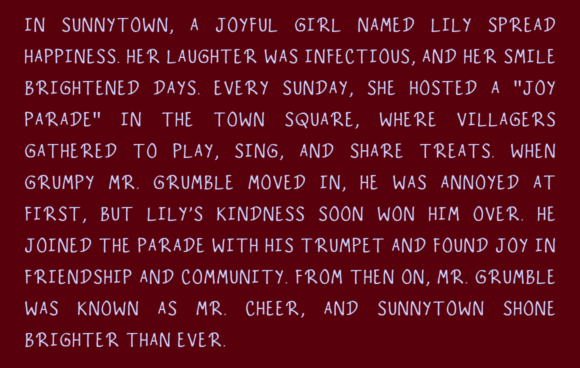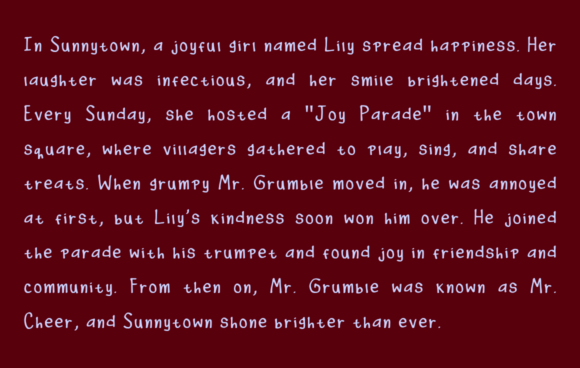
Introducing Natural Flow: The Gel Pen Font that Brings Effortless Elegance to Your Designs
Are you tired of using the same old fonts in your digital journaling and personal stationery projects? Look no further than the Natural Flow font, a beautifully crafted gel pen font that captures the fluidity and elegance of handwritten writing. This charming typeface is designed to add a touch of whimsy and character to any project, making it perfect for designers and crafters looking to add a personal touch to their work.
The Inspiration Behind Natural Flow
Natural Flow is a handwritten monoline typeface that is inspired by the effortless glide of a gel pen. The font’s creator aimed to capture the organic, flowing quality of handwritten writing, while also maintaining a sense of elegance and sophistication. The result is a font that feels both friendly and approachable, yet refined and polished.
What Makes Natural Flow Special?
So, what sets Natural Flow apart from other fonts? Here are just a few features that make this gel pen font truly special:
- Organic touch: Natural Flow has a distinctly organic feel, with subtle imperfections and variations that give it a handmade quality.
- Elegant whimsy: This font is designed to be both elegant and playful, making it perfect for projects that require a touch of sophistication and charm.
- Monoline design: Natural Flow is a monoline font, which means that it has a consistent line width throughout. This gives it a clean, streamlined look that is perfect for digital journaling and personal stationery.
- Friendly nature: This font has a warm, approachable feel that makes it perfect for projects that require a personal touch.
How to Use Natural Flow in Your Designs
Natural Flow is a versatile font that can be used in a wide range of design projects, from digital journaling and personal stationery to branding and packaging. Here are just a few ideas for how you can use this beautiful gel pen font in your designs:
- Digital journaling: Add a personal touch to your digital journaling projects with Natural Flow. This font is perfect for writing, doodling, and creating art.
- Personal stationery: Create beautiful, one-of-a-kind stationery with Natural Flow. This font is perfect for writing letters, creating greeting cards, and making gift tags.
- Branding and packaging: Use Natural Flow to add a touch of elegance and whimsy to your branding and packaging projects. This font is perfect for creating labels, stickers, and other marketing materials.
The Benefits of Using Natural Flow
So, why should you choose Natural Flow for your design projects? Here are just a few benefits of using this beautiful gel pen font:
- Adds character and charm: Natural Flow adds a touch of personality and whimsy to any project, making it perfect for designers and crafters who want to create unique and eye-catching designs.
- Creates a sense of warmth and familiarity: This font has a warm, approachable feel that creates a sense of connection and familiarity with the reader.
- Perfect for digital journaling and personal stationery: Natural Flow is specifically designed for digital journaling and personal stationery, making it the perfect choice for these types of projects.
In conclusion, Natural Flow is a beautiful gel pen font that is perfect for designers and crafters looking to add a touch of elegance and whimsy to their designs. With its organic touch, elegant whimsy, and friendly nature, this font is sure to become a favorite in your design arsenal. Whether you’re working on digital journaling projects, personal stationery, or branding and packaging, Natural Flow is the perfect choice. So why wait? Download Natural Flow today and start creating beautiful, one-of-a-kind designs that capture the essence of ink and imagination.